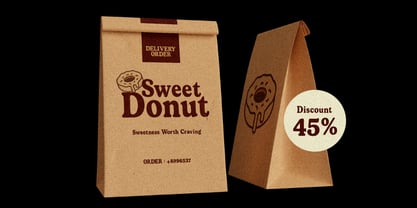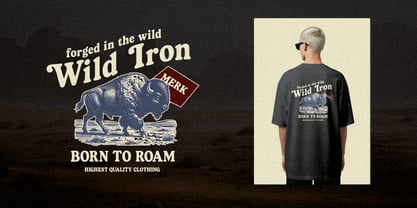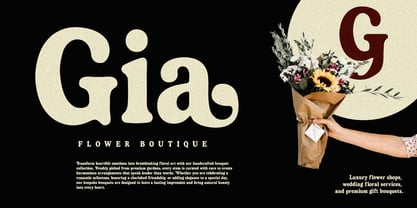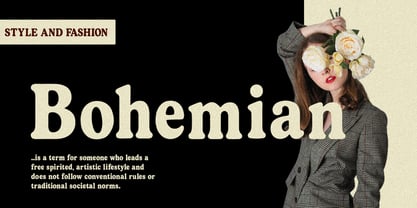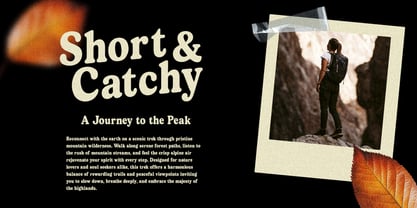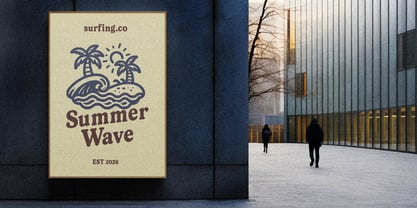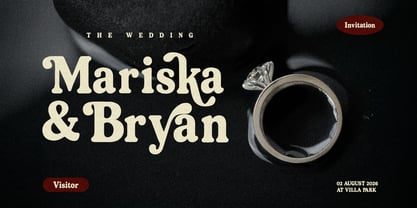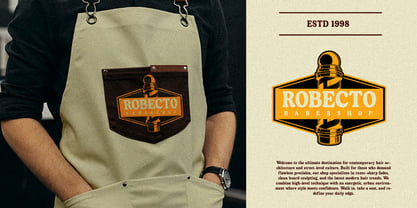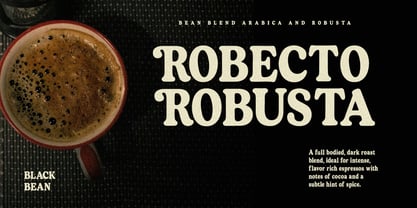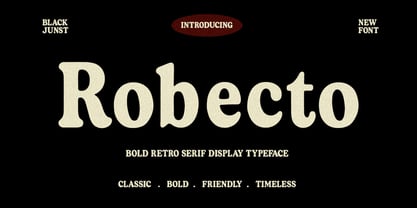
Robecto
Robecto is a bold retro serif display typeface that blends chunky proportions, soft curves, and classic serif details into a distinctive vintage-inspired design.
Created for designers who want typography with personality, impact, and nostalgic character, Robecto brings a playful yet confident feel to headlines and display applications. Its bold construction makes it especially effective when used at large sizes, while its friendly shapes give it a versatile personality for both modern and vintage-inspired projects.
Robecto works beautifully for retro branding, vintage logos, fashion, apparel, packaging, posters, editorial headlines, food and beverage designs, merchandise, labels, badges, and social media graphics.
Its combination of bold serif forms and retro aesthetics makes Robecto a strong choice for projects inspired by vintage advertising, 70s typography, nostalgic branding, classic packaging, and contemporary retro design.
Robecto is designed to give your typography a bold, friendly, classic, and timeless retro presence.